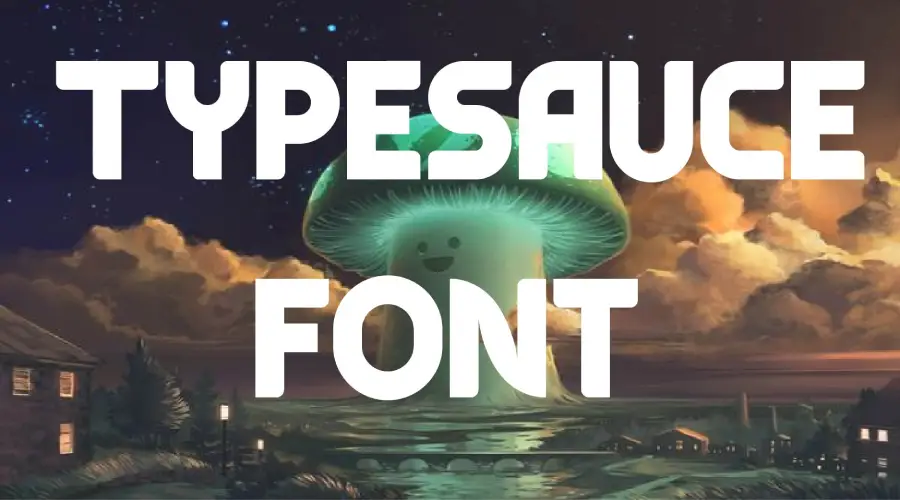
Based on Evan Hogan’s original Twitch.TV stream group logo, Typesauce font is a typeface inspired by Vinesauce. This typeface was created by MaxiGamer. He is a font designer who makes various fonts inspired by video games and pop culture. It is free for personal.
About Typesauce Font
Typesauce font has a unique and playful look that can add a touch of fun to your design projects. It has uppercase and lowercase letters, numerals, and punctuation. It supports 95 characters, including Latin and some special symbols.
Typesauce font is a typeface based on an original logo design by Evan Hogan, made for Vinesauce, a Twitch channel. A single style can suit a wide range of preferences and needs. You can also use it for personal purposes for free.